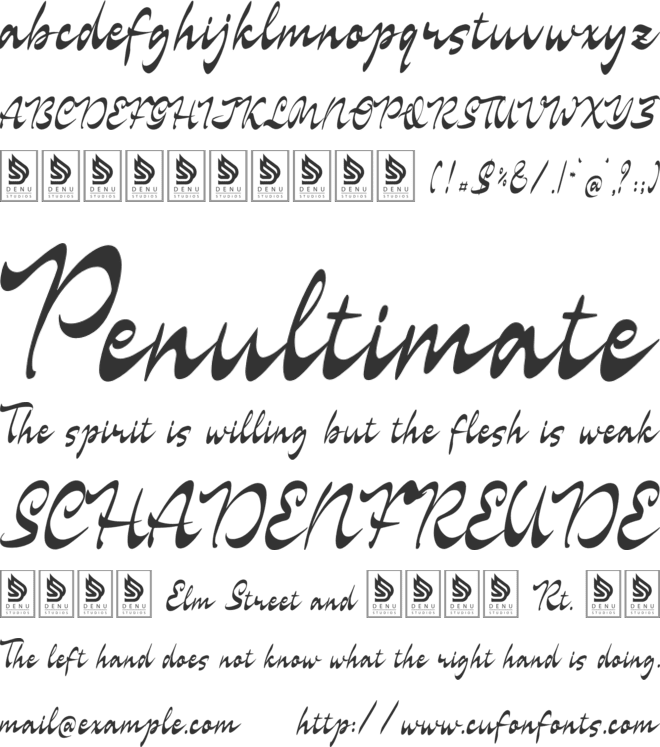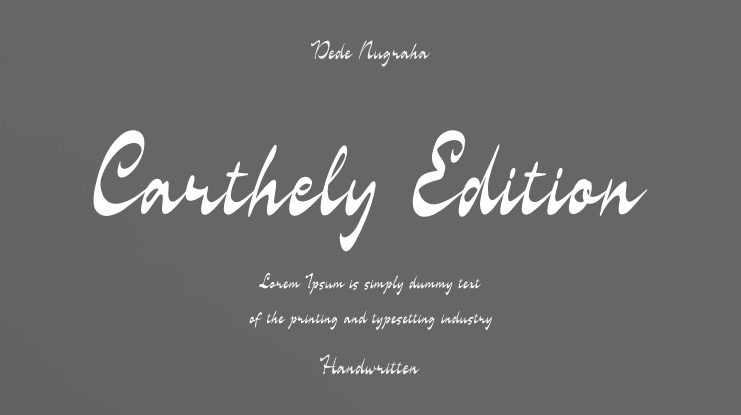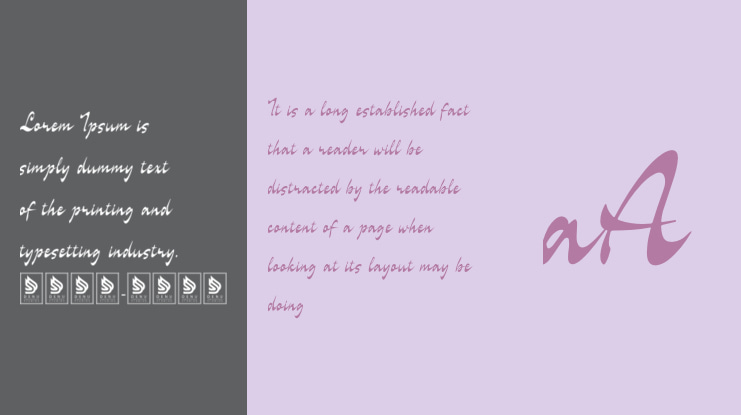
Carthely Edition | Handwritten Font product packaging, mugs, quotes, posters, shopping bags, t-shirts, book covers, name card, invitation cards, greeting cards, label, photography, watermark, special events, and all your other lovely projects that need a Script Handwritten taste.